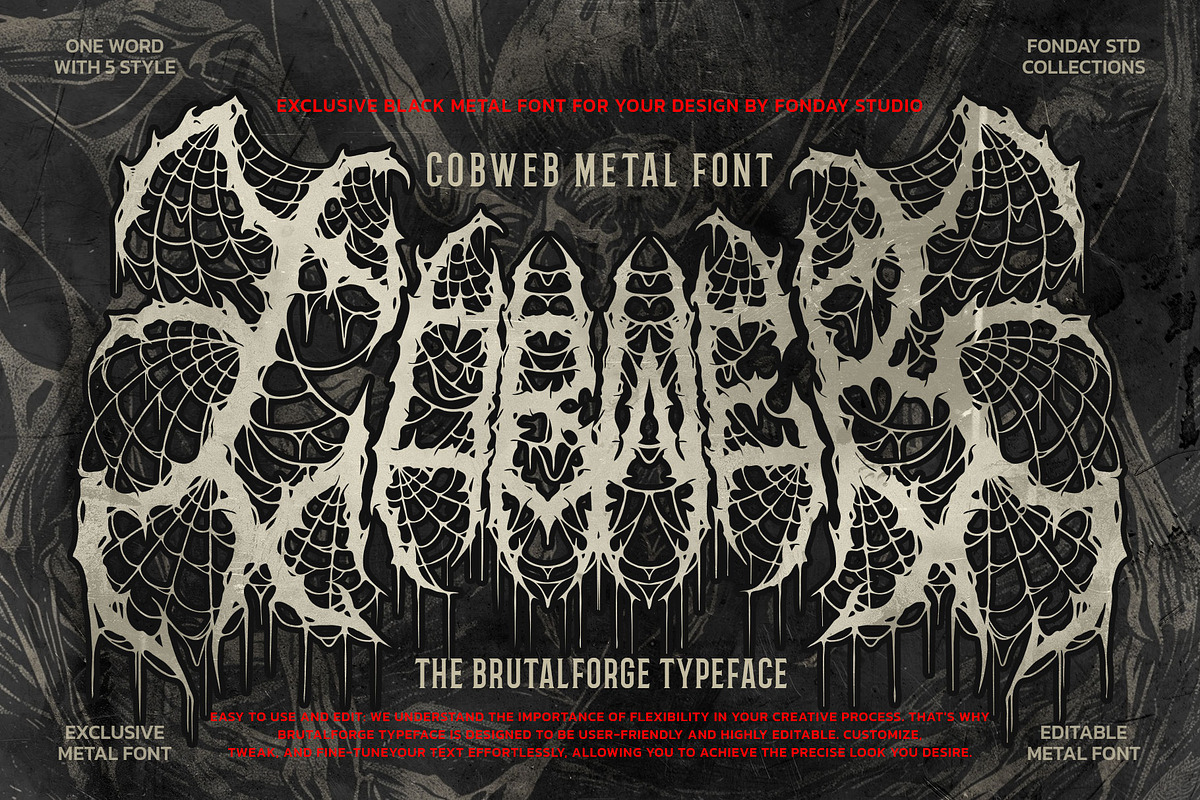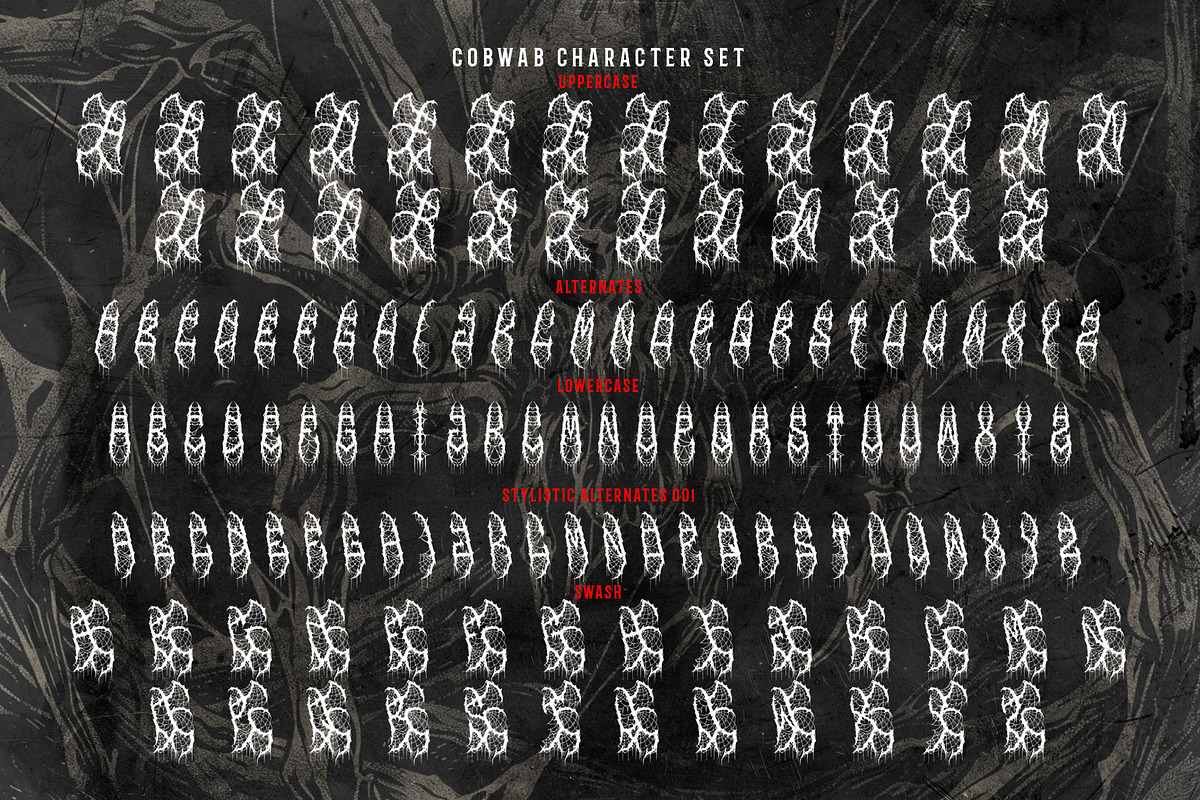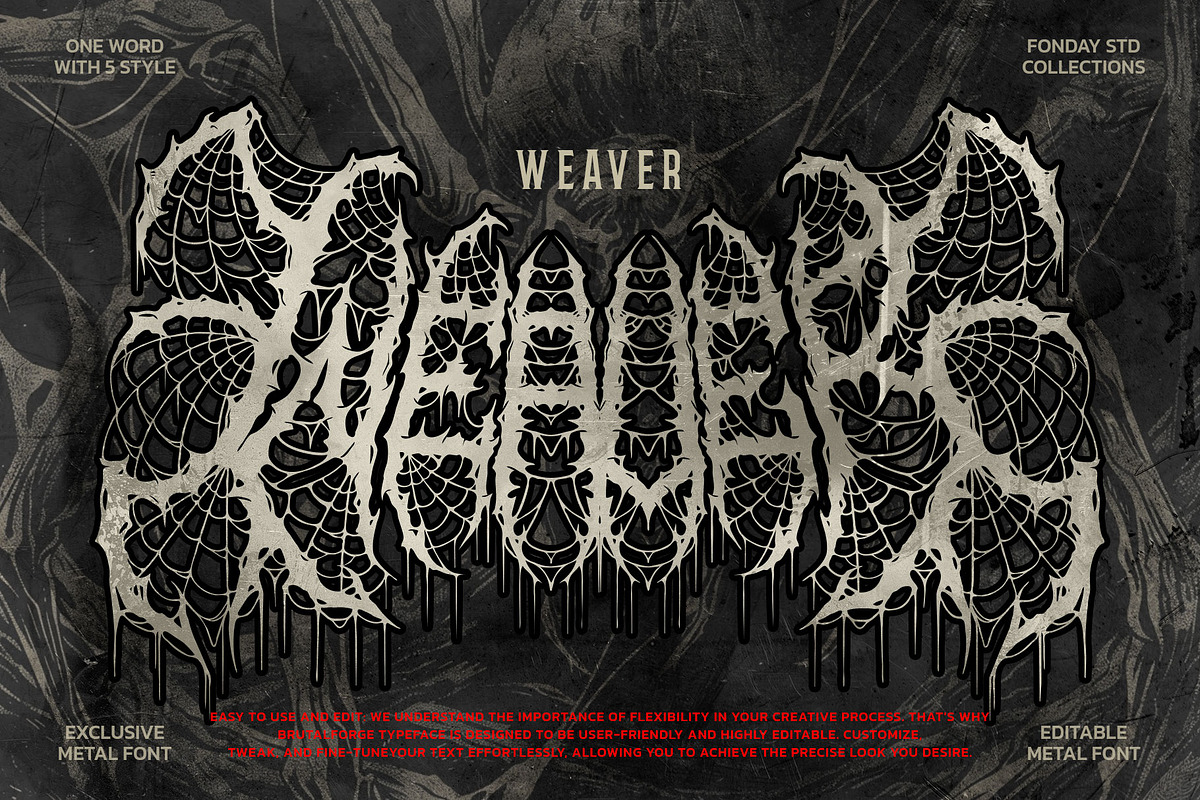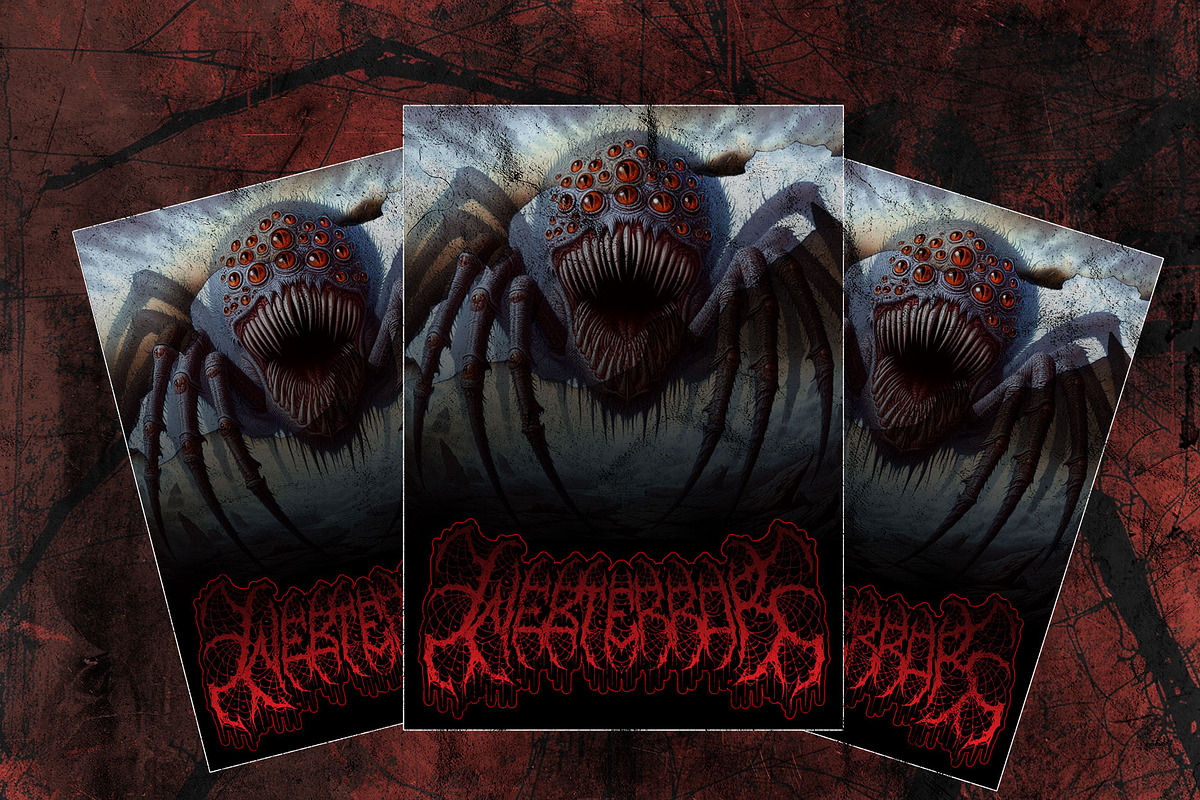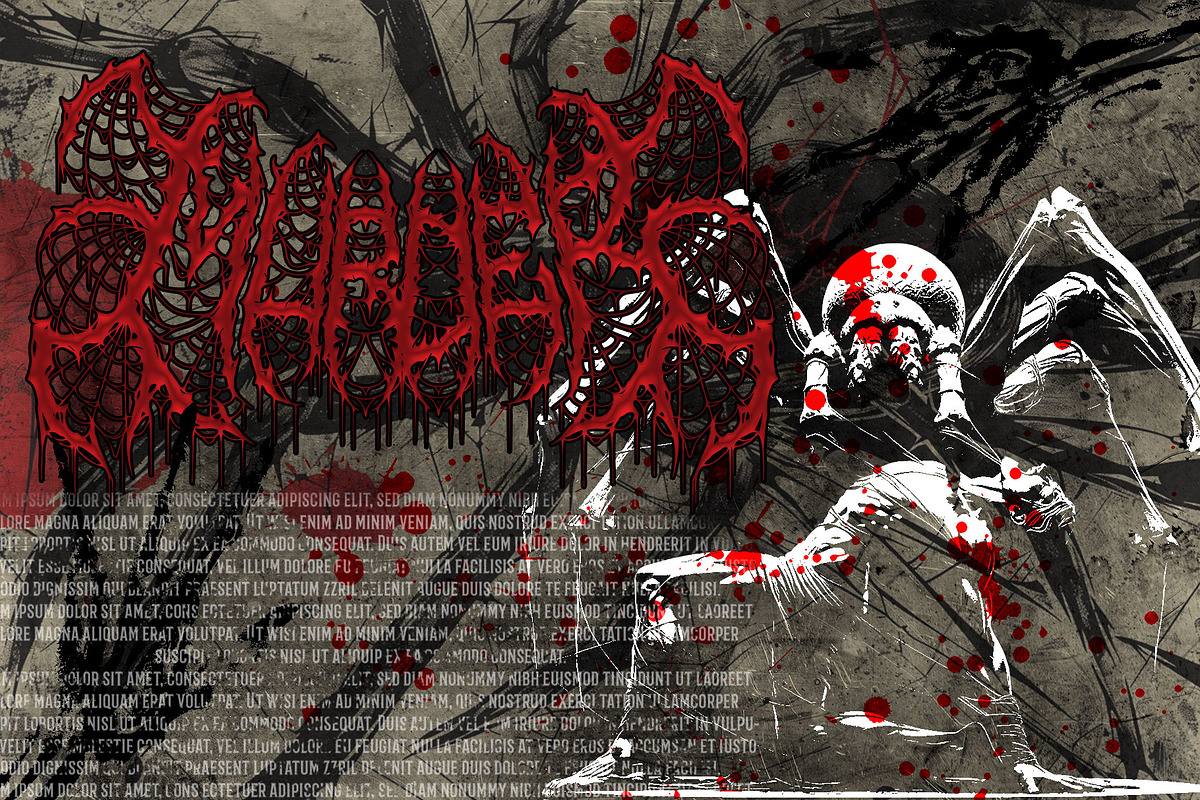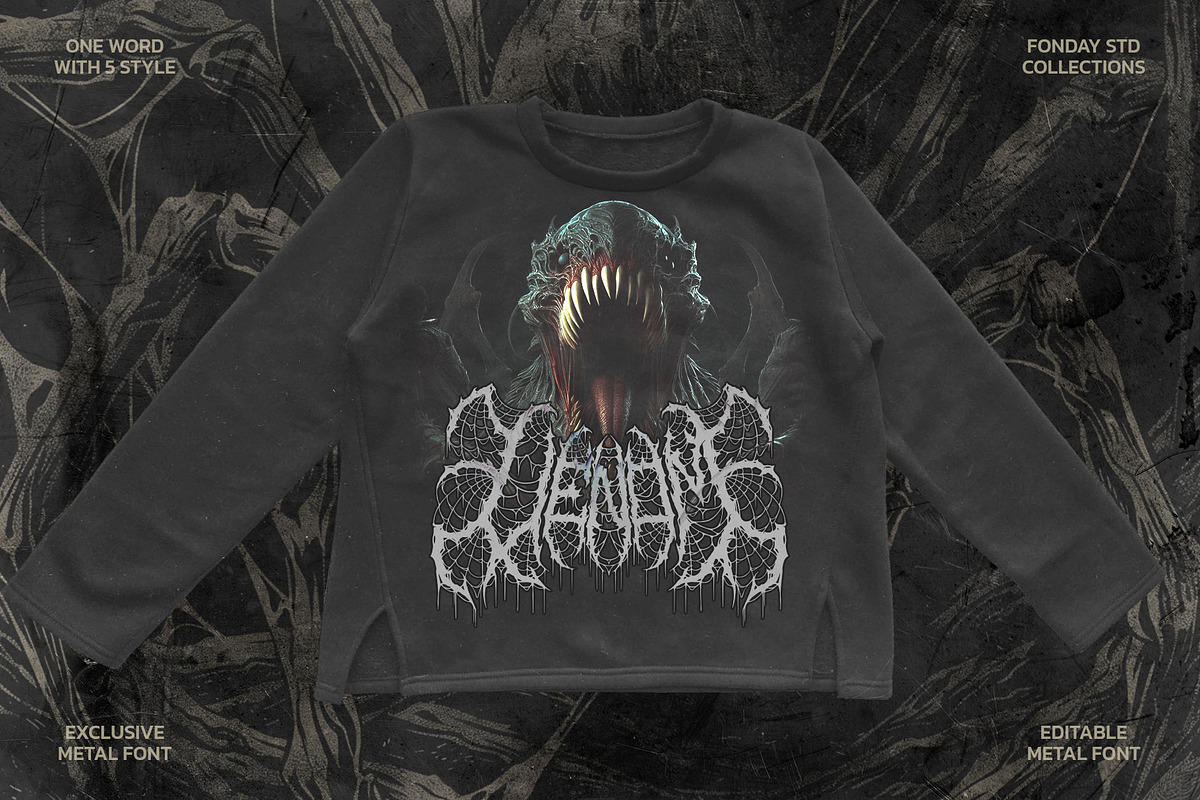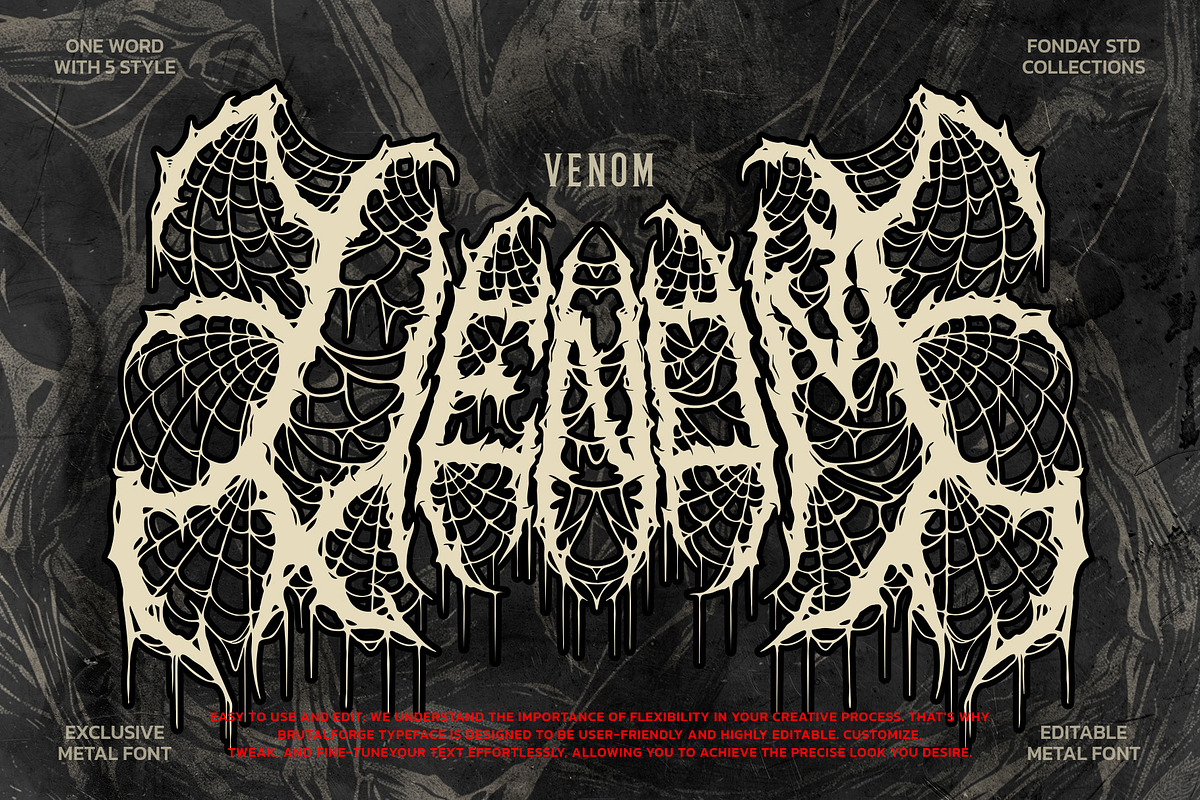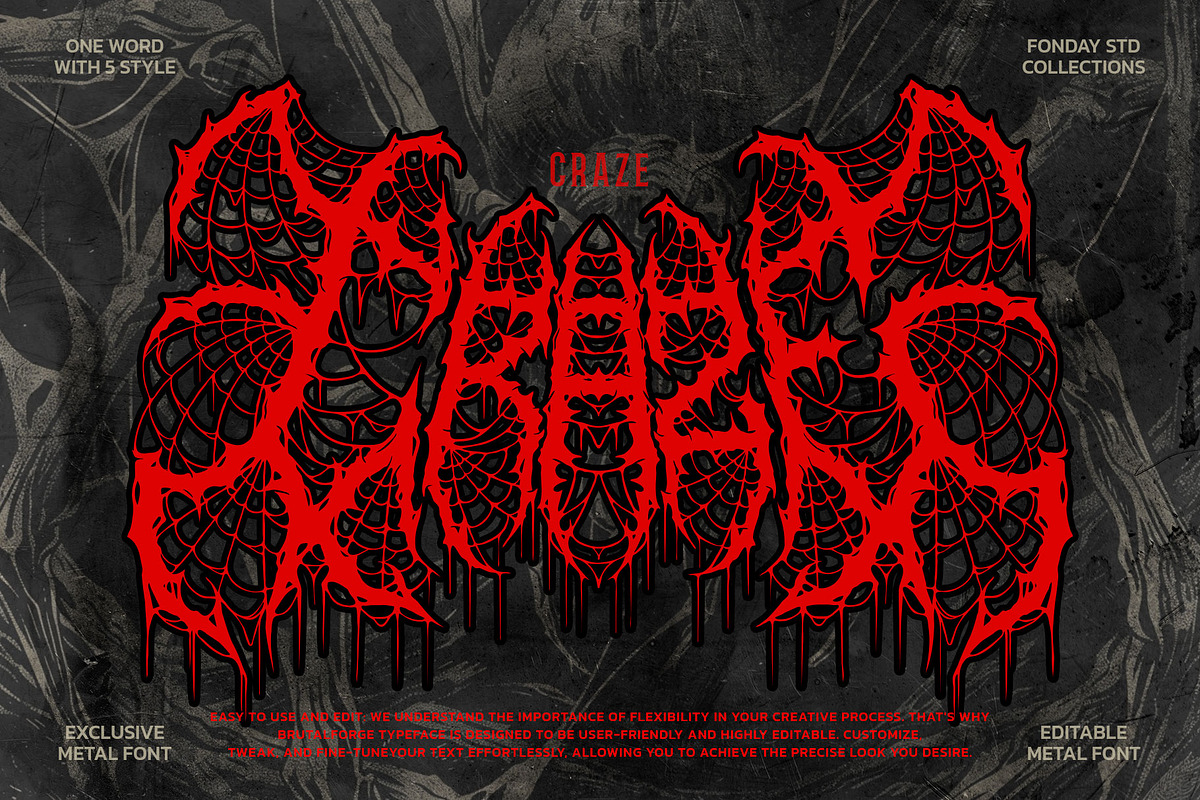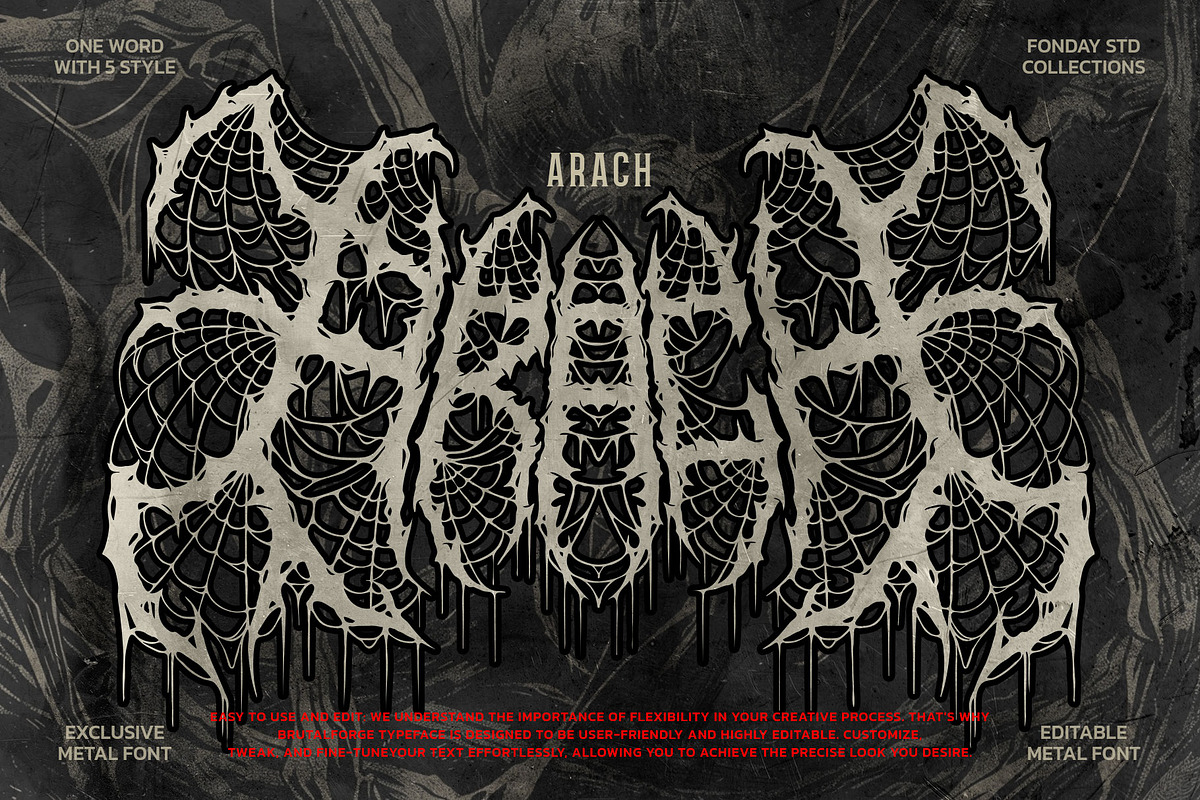
Cobweb Death Metal Font
🕸️ Introducing Cobweb Death Metal Font: Spin a Web of Darkness in Every Design! 🕸️
Dive into the abyss with the meticulously crafted “Cobweb Death Metal Font.” Inspired by the intricate patterns of spider webs, this font isn’t just a tool; it’s a masterpiece of high-quality, exclusive design.
🔥 Intricate Web of Detail: Each line in Cobweb is delicately woven, capturing the essence of spider webs and exuding the raw energy demanded by the metal genre. It sets a new standard for precision and quality.
🕸️ A Network of Alternates: Immerse yourself in a network of alternate characters, providing you with the tools to weave your designs with a unique, menacing edge that speaks the language of true metal.
🕸️ Weave Your Darkness: Embrace the shadows and redefine your metal design aesthetic with Cobweb Death Metal Font.